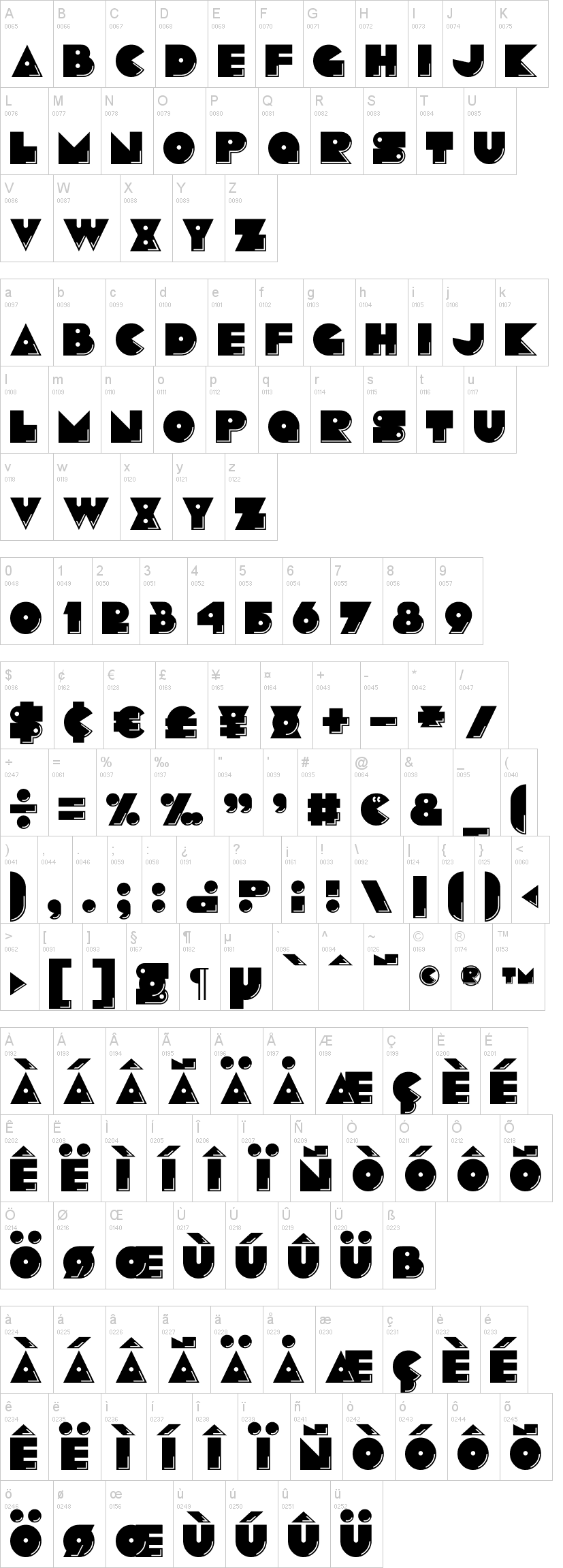
Pacmania Italic.otfNote of the authorThis famous typeface is based on the original logos of the Pac-Man franchise from Namco Inc. Includes full alphabet, euro, extended punctuation.